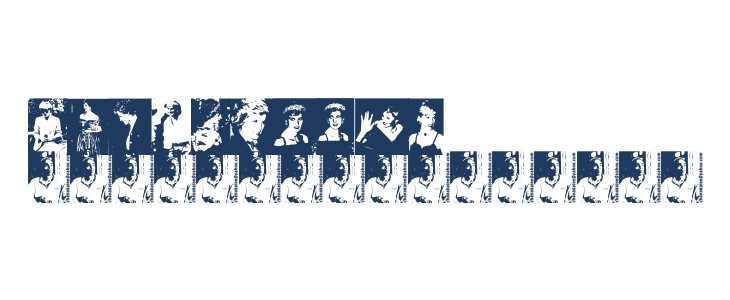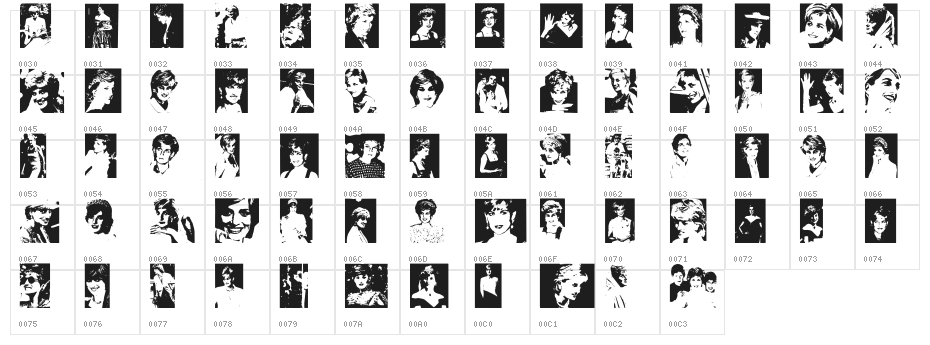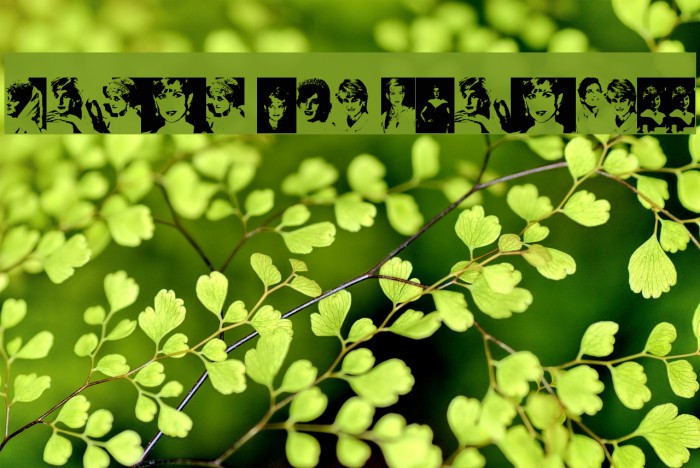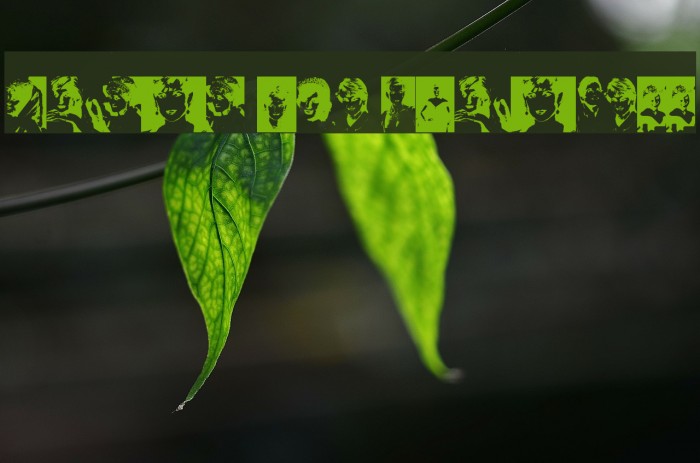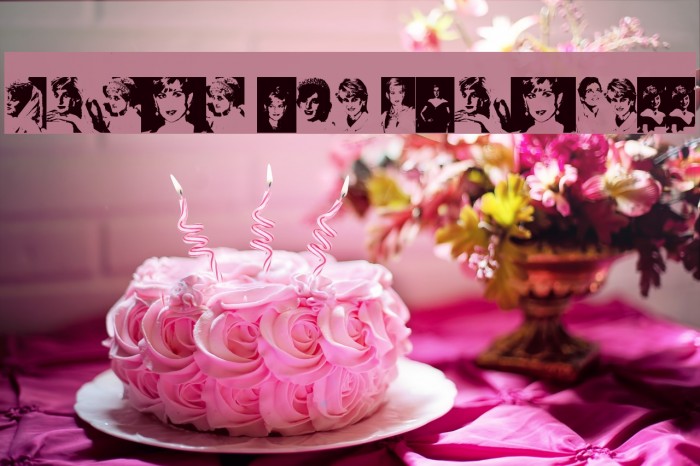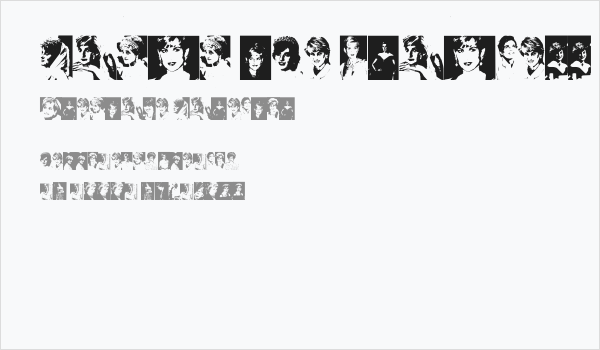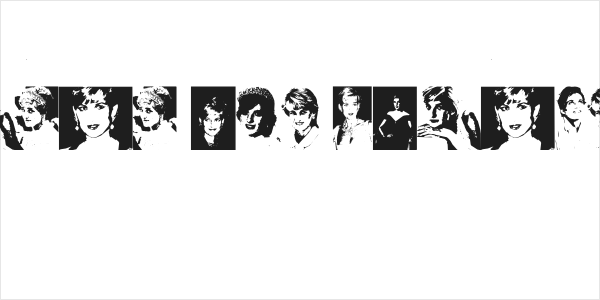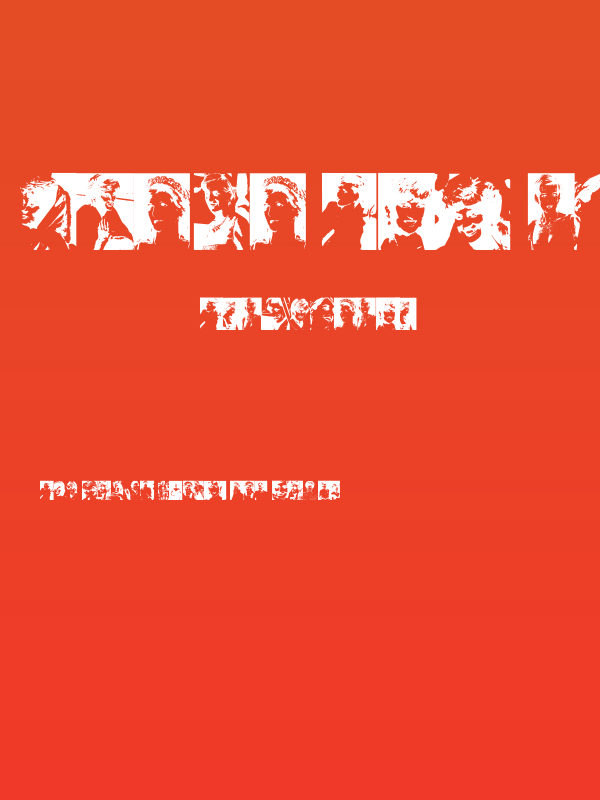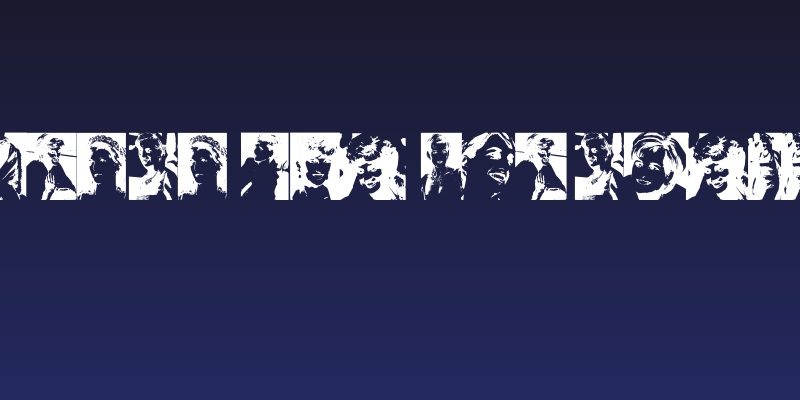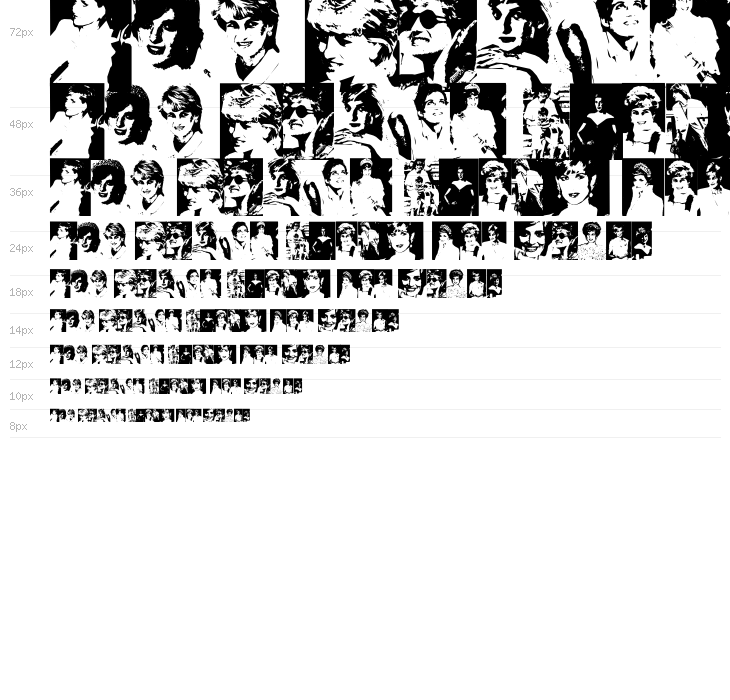
Diana the Princess Font
Diana the Princess Description
A decorative display font composed of high-contrast, black-and-white stencil-style portraits arranged within rectangular glyph spaces, creating a visually striking and unique alphabet where each character is represented by a different portrait.
Overall StyleDecorative, Artistic, Modern
Use CaseHeadlines, Posters, Artistic projects, Logos
Proposed ProjectsPosters, album covers, editorial headlines, art projects, themed event branding.